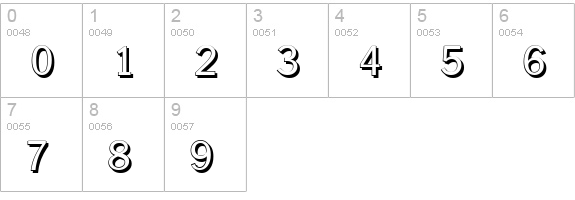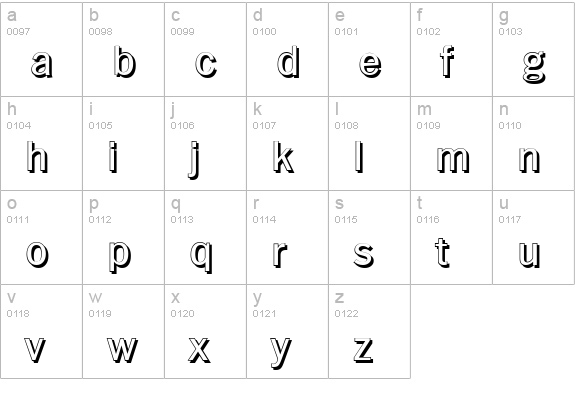
PlymouthShadow-Regular is the standard, neutral variant in the PlymouthShadow typeface family \xE2\x80\x94 well suited to general body text, paragraphs, and standard typographic work.
PlymouthShadow-Regular is a classic and versatile font that exudes elegance and sophistication. This timeless typeface features clean lines and a subtle shadow effect that adds depth and dimension to any design project. Whether you're creating invitations, branding materials, or editorial layouts, PlymouthShadow-Regular is sure to make a lasting impression. Best of all, this beautiful font is available for free download at FontsMarket.com. Take advantage of this amazing offer and enhance your creative projects with PlymouthShadow-Regular today!